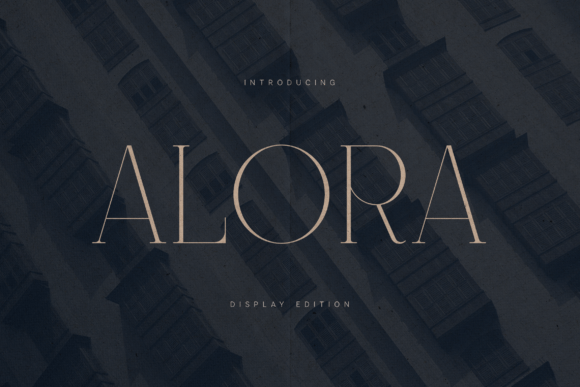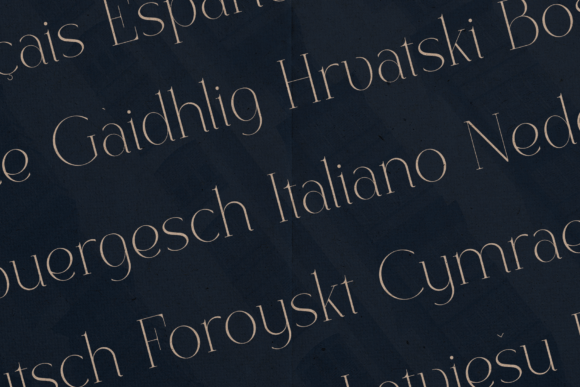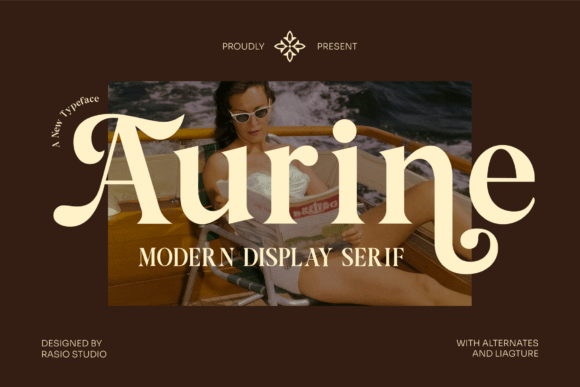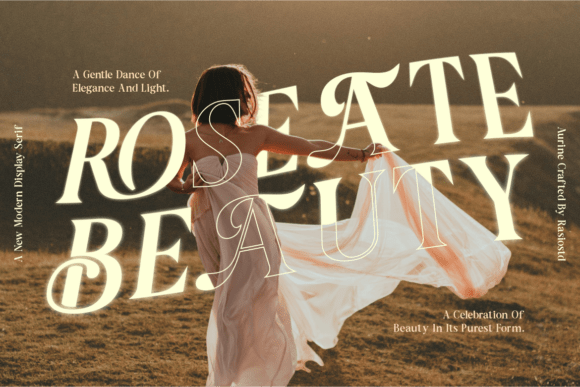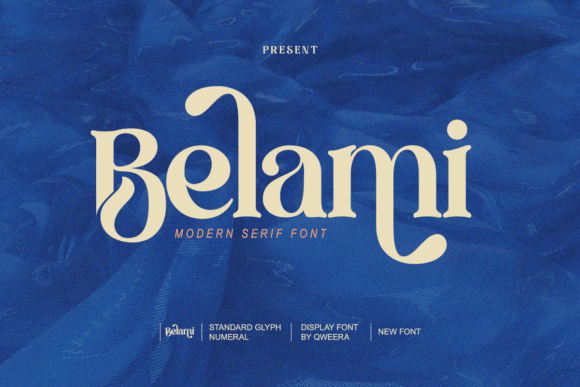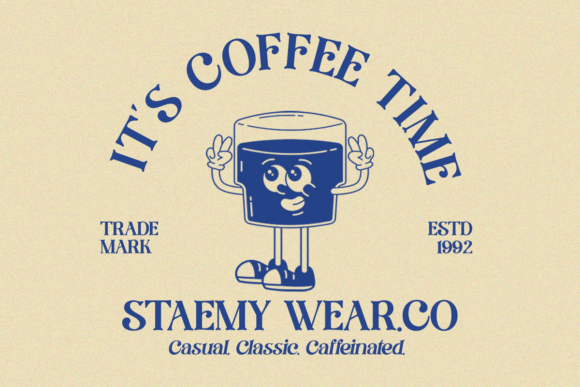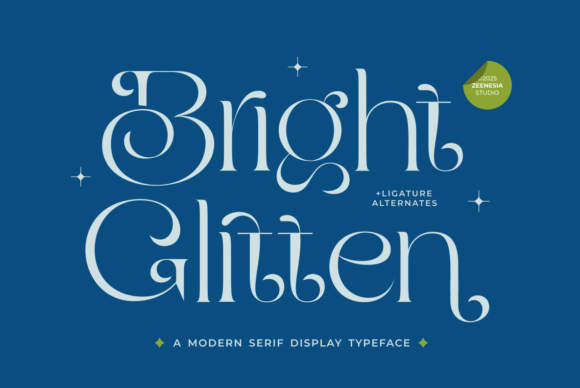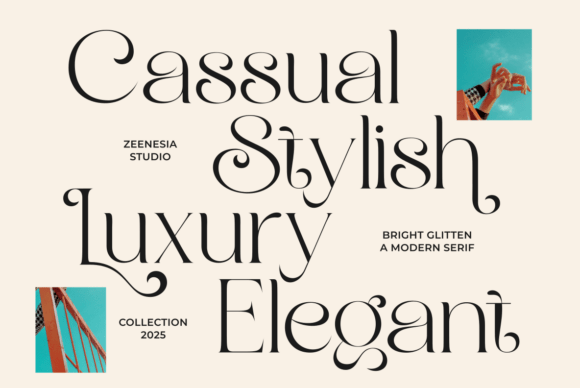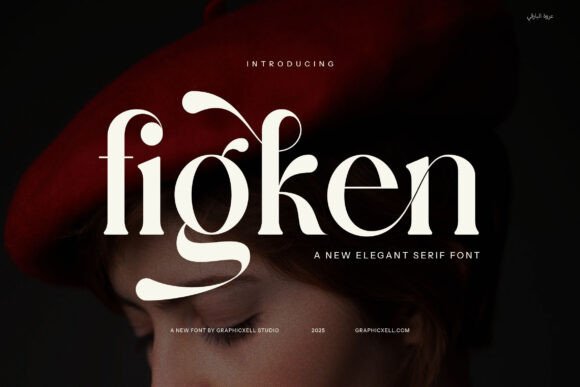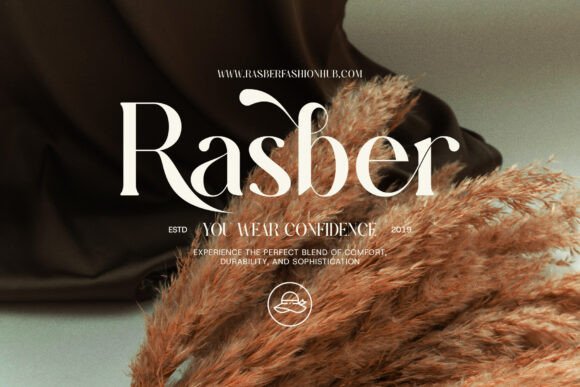
17 Best Modern Serif Fonts to Elevate Your Design Projects
Finding the right Modern Serif Font can completely transform the mood of a design, taking it from standard to sophisticated in an instant. In this post, I’ve curated 17 of my personal favorites that I use to bring high-end elegance and contemporary flair to my layouts. Whether you’re working on a luxury brand or a sleek editorial piece, these fonts offer the perfect blend of tradition and modern style.
1. Flogst Modern Serif Font
There’s a specific kind of polish that only certain Modern Serif Font can provide, and Flogst is currently sitting at the top of that list for me. I’m consistently impressed by how its smooth curves play against those incredibly sharp serifs, creating a look that feels both artistically daring and deeply sophisticated. It’s that rare find that strikes a perfect balance between timeless elegance and a very current, contemporary style, making it a joy to use when a layout needs to feel expensive and curated.
The real magic of this typeface, however, lies in its beautifully crafted ligatures and stylish alternates. In my recent editorial and luxury branding work, these refined details have allowed me to create typography that feels fluid and exclusive, almost like a custom commission. Whether I’m designing for a high-end fashion label or a sleek web layout, the high-contrast strokes ensure that the final result has a massive visual impact while remaining effortlessly readable—it’s everything you want from Modern Serif Font in one package.
2. Bright Glitten Modern Serif Font
If you’re looking to infuse your next design with a sense of radiance and high-end glamour, Bright Glitten is a Modern Serif Font that truly lives up to its name. I was immediately drawn to its graceful curves and the way it balances a classic serif structure with a very “now” aesthetic. It has this unique ability to shimmer on the page, making it a perfect choice for those editorial layouts where you want the typography to feel as luxurious as the imagery it accompanies.
What really makes this typeface a standout for me, however, is the sheer depth of its creative features—specifically those refined alternates and special ligatures. In my experience, these details are what transform a standard logo or packaging project into something that feels exclusive and custom-made. Whether I’m working on a fashion campaign or elegant stationery, this Modern Serif Font ensures the text has just the right amount of sparkle and allure to keep the viewer’s eye exactly where it needs to be.
3. Figken Modern Serif Font
There are moments in a design process when you realize a standard, traditional typeface just won’t cut it, and you need something with a bit more contemporary bite. That is precisely where Figken comes into play. As a Modern Serif Font, it beautifully embodies the kind of artistic craftsmanship that elevates a project instantly. I absolutely love how its smooth, sweeping curves interact with incredibly sharp serifs—it creates a striking visual tension that seamlessly blends classic, timeless elegance with true modern versatility.
From a practical standpoint, having a typeface with such graceful proportions makes my daily workflow significantly easier and more inspiring. Whether I am mapping out a minimalist editorial layout or developing concepts for high-end luxury packaging, this Modern Serif Font brings a polished, upscale aesthetic to the table that clients immediately resonate with. It transitions flawlessly from print branding to digital platforms, ensuring that any design it touches feels deeply refined and intentionally crafted.
4. Spadore Modern Serif Font
Finding a typeface that successfully bridges the gap between retro charm and high-end luxury is no easy feat, but Spadore makes it look effortless. As a Modern Serif Font, it brings a creative and classic style to the table that immediately elevates any branding project it touches. I’ve found that its unique personality works wonders when you need to give a design a sense of trendy elegance while keeping it grounded in a more traditional, sophisticated structure.
What really gets me excited as a designer, though, is the sheer depth of its alternates and binders, which are essential for crafting something truly original. Whether I’m working on a high-end website header or a bespoke logo, this Modern Serif Font provides the flexibility to create custom typography that feels one-of-a-kind. It is a fantastic choice for any project where the goal is a luxurious and polished aesthetic that resonates with a modern, style-conscious audience.
5. Ravinda Modern Serif Font
Every once in a while, a typeface comes along that completely redefines how we look at decorative details, and Ravinda is a Modern Serif Font that does exactly that. It is a brand-new release that leans heavily into a highly decorative aesthetic, offering a level of elegance that feels incredibly fresh and intentional. I love how it manages to feel elaborate without being overwhelming, providing a contemporary edge that is perfect for projects requiring a distinct, upscale personality.
The real showstopper here is the collection of elegant ligatures and alternate characters, complete with those beautiful, flowing swashes. In my experience, these types of details are what transform a standard layout into a piece of high-end design. Whether you are working on luxury branding or a sophisticated editorial project, this Modern Serif Font provides all the tools you need to create a look that feels both bespoke and timelessly polished.
6. Ostir Agobelt Modern Serif Font
If you are looking for a typeface that commands attention with the prestige of a high-fashion editorial, Ostir Agobelt is a Modern Serif Font that absolutely delivers. I’m particularly captivated by its high-contrast strokes and those fluid, organic curves that feel both powerful and graceful. What really sets it apart for me, though, are the unique “sparkle” motifs tucked into the circular glyphs—it’s a signature look that feels legendary right out of the box.
In my recent branding experiments, I’ve found this Modern Serif Font to be a powerhouse for boutique cosmetic packaging and artisanal lifestyle magazines. The rhythmic, elongated terminals give every headline a sense of polished beauty and unyielding professional strength. Whether you’re crafting a chic social media header or a complete visual identity, Ostir Agobelt ensures your work carries an unforgettable presence that truly resonates with a high-end audience.
7. Mondeba Modern Serif Font
Some fonts just have a way of making a project feel instantly more expensive, and Mondeba is a Modern Serif Font that does exactly that. I’m really impressed by how it manages to blend that classic, timeless elegance we all love with a sharp sense of contemporary sophistication. The balanced proportions and smooth curves give it a graceful flow that makes every word feel like a deliberate piece of art rather than just a string of letters.
What makes this Modern Serif Font a staple for me is its incredible versatility across both digital and print mediums. I’ve found it to be a fantastic choice for luxury branding and high-end packaging, but it also feels right at home in wedding designs or fashion editorials. With its refined ligatures and stylish alternates, Mondeba delivers a polished, professional look that can truly elevate a brand’s visual identity without feeling too rigid.
8. Rosevine Modern Serif Font
There are those rare moments in a project when you need a typeface that whispers “luxury” while commanding the entire room, and Rosevine is exactly that kind of Modern Serif Font. As a digital creator focusing on high-end aesthetics, I’m a fan of how it balances incredibly sharp serif details with sweeping, organic curves, creating a high-contrast look that feels both timeless and contemporary. For anyone aiming for a refined, editorial feel, this is the kind of asset that makes a minimalist layout feel truly complete.
What truly sets Rosevine apart for me is its ability to handle high-fashion magazine titles and cinematic layouts without breaking a sweat. As a Modern Serif Font, it features artistic ligatures and a sophisticated structure that is perfect for luxury beauty branding or any project requiring an avant-garde edge. Whether you’re working on a boutique campaign or premium packaging for your blog, this font helps you project a level of confidence and artistic flair that is simply unforgettable.
9. Aurine Modern Serif Font
When I’m looking for a typeface that doesn’t just sit on the page but actually has a “voice,” Aurine is exactly the kind of Modern Serif Font I find myself returning to. It manages a rare feat: blending high-class elegance with a genuinely bold personality that feels right at home in a minimalist editorial layout. I’m particularly fond of its condensed proportions and that subtle retro serif charm—it gives a design a sense of established luxury without feeling dated or stiff.
What makes this Modern Serif Font such a versatile asset for a professional digital creator is how it handles different moods, from professional corporate identities to more delicate, feminine luxury projects. I’ve seen it work wonders on everything from wedding invitations—a niche I’ve spent a lot of time exploring lately—to editorial headlines for fashion magazines. Plus, the lavish detailing and multilingual support make it a reliable choice for international branding projects where every character needs to look as polished as the signature logo.
10. Morside Modern Serif Font
Every now and then, I stumble upon a typeface that feels less like a tool and more like a centerpiece, and Morside is exactly that. It’s a Modern Serif Font that manages to strike an incredible balance between high-contrast strokes and graceful, sweeping curves. I find its distinctive details give it an artistic edge that’s hard to find in more traditional serifs, making it perfect for those times when you want a minimalist layout to feel both classic and undeniably fresh.
In my own work—especially when I’m diving into the wedding design niche or building out high-end fashion visuals—this font has become a go-to for making a statement. As a Modern Serif Font, Morside brings a level of confidence to everything from elegant labels and packaging to full-scale magazine layouts. It really is a statement of refined style that helps elevate a professional digital creation, ensuring that every quote or brand name feels truly luxurious.
11. Alora Modern Serif Font
I often find myself reaching for typefaces that can carry the weight of a minimalist layout without feeling cold, and Alora is a Modern Serif Font that hits that mark perfectly. I’ve been leaning into editorial, beige-toned aesthetics for my recent design templates, and the refined lines of this font mesh beautifully with that clean, sophisticated look. It’s the kind of typeface that makes a professional digital creation feel instantly more curated and intentional.
Beyond the initial visual appeal, what really draws me to this specific font is how effortlessly it adapts to premium design projects and luxury branding. As a Modern Serif Font, Alora brings a level of “quiet luxury” to fashion editorials and stylish social media graphics that is quite hard to match. Whether you are working on elegant packaging or looking for the perfect centerpiece for a new branding kit on creativekitbox.com, this typeface provides a polished, upscale finish that really elevates the entire creative work.
12. Belami Modern Serif Font
There’s a certain satisfaction in finding a typeface that balances delicate aesthetics with structural strength, and Belami is a Modern Serif Font that does this with incredible poise. I’m particularly drawn to its high-contrast strokes and graceful curves, which feel right at home in a high-end editorial layout. It’s the kind of font that transforms a simple heading into a luxury branding statement, making it a fantastic addition to any professional design toolkit.
Beyond its immediate visual appeal, what really impresses me is how the elegant ligatures and distinctive letterforms blend classic sophistication with a sharp, contemporary edge. As a Modern Serif Font, Belami is thoughtfully crafted to ensure that even with its stylish flourishes, the text remains highly legible and versatile across different mediums. Whether you’re working on a minimalist logo or a fashion-forward headline, this typeface provides a timeless aesthetic that feels both fresh and incredibly refined.
13. Minors Modern Serif Font
Sometimes a design requires a sense of height and verticality that standard typefaces just can’t reach, and that’s where Minors really shines. As a Modern Serif Font, it brings a beautiful blend of timeless elegance and minimalist sophistication through its long, slender letterforms. I’ve found that the high-contrast strokes and refined curves give it a fashion-forward charm that feels right at home in a high-end editorial layout, especially when working within a minimalist, beige-toned aesthetic.
What really sticks with me is how this typeface manages to feel both delicate and incredibly bold at the same time. This Modern Serif Font is practically built for luxury branding and high-impact magazine headlines where leaving a lasting impression is the top priority. Minors provides that specific touch of editorial finesse that elevates a professional digital creation into something truly unforgettable.
14. Ut Silver Glass Modern Serif Font
Every now and then, I come across a typeface that feels like it has a soul of its own, and UT Silver Glass is a perfect example of a Modern Serif Font that strikes a rare balance. It’s a beautifully crafted choice that manages to marry classic, luxurious lines with a very sharp, modern edge. I’m particularly fond of the way its flowing curves interact with more intricate strokes, creating a visual rhythm that feels incredibly sophisticated and intentional.
What truly makes this typeface a standout for me is the depth of the creative possibilities it unlocks through its thoughtfully designed alternates and ligatures. In my experience, these are the tiny details that can redefine a project, whether you’re working on high-end luxury branding or delicate event stationery. As a Modern Serif Font, it radiates an unparalleled charisma that is both refined and bold, making it a powerful tool for anyone looking to add a sense of polished confidence to their editorial layouts.
15. Berina Modern Serif Font
There are moments when a project calls for a certain level of gravitas that a delicate script simply can’t provide, and that is where Berina truly shines. It is a Modern Serif Font that manages to be undeniably bold without losing an ounce of its refined, stylish look. I find myself reaching for this typeface when I want to anchor an editorial layout with something that feels substantial and strong, yet remains deeply elegant and artistic.
Beyond its visual weight, what I appreciate most is how effortlessly this font lends itself to a variety of sophisticated creative projects, from high-end branding to editorial design. As a Modern Serif Font, Berina brings a sense of polished confidence to everything it touches, whether you are crafting a standout logo or developing premium packaging. It is a reliable choice for any designer looking to strike that perfect balance between structural strength and contemporary, high-fashion flair.
16. Seroze Modern Serif Font
Sometimes you need a font that does more than just sit on a page—it needs to set a mood of absolute refinement, and Seroze is a Modern Serif Font that does exactly that. I’m particularly captivated by its high-contrast strokes and distinctive letterforms, which manage to bring a sense of luxury and artistic character to a design. It has this unique ability to deliver an exclusive presence that feels incredibly curated without ever overwhelming the rest of your composition.
What really makes this typeface a standout in my toolkit is the way it marries a timeless aesthetic with a sharp, contemporary edge. As a Modern Serif Font, it is a powerhouse for developing sophisticated branding or editorial layouts where refined proportions are key to the visual identity. It’s an ideal choice for any designer who wants to inject a sense of elegance into their work while ensuring the final result feels polished and deeply professional.
17. Saint Paris Modern Serif Font
There are certain fonts that just radiate a sense of high-end authority the moment you type out a single word, and Saint Paris is a Modern Serif Font that fits that description perfectly. I’m particularly drawn to the way its sharp serifs play against the rhythmic contrast of the strokes, creating a visual harmony that feels deeply rooted in classical design while remaining undeniably fresh. It is the kind of typeface that doesn’t just display text; it builds an atmosphere of prestige and deliberate craftsmanship.
In my own design practice—especially when tackling editorial headlines or luxury branding—having an asset like this is a total game-changer for a professional digital creator. This Modern Serif Font is practically made for high-concept advertising where the goal is to communicate luxury and exclusivity without being overly decorative. Whether you’re setting the stage for a premium brand identity or a sophisticated digital layout, Saint Paris delivers a polished, contemporary look that ensures your message feels as important as the design itself.
Conclusion
Choosing the perfect Modern Serif Font is all about finding that specific character that speaks to your brand’s soul. I hope this list of 17 typefaces gives you the inspiration you need for your next creative breakthrough. Remember, the right typography doesn’t just display text—it tells a story. Keep experimenting with these beautiful serifs and stay creative in all your upcoming professional projects!